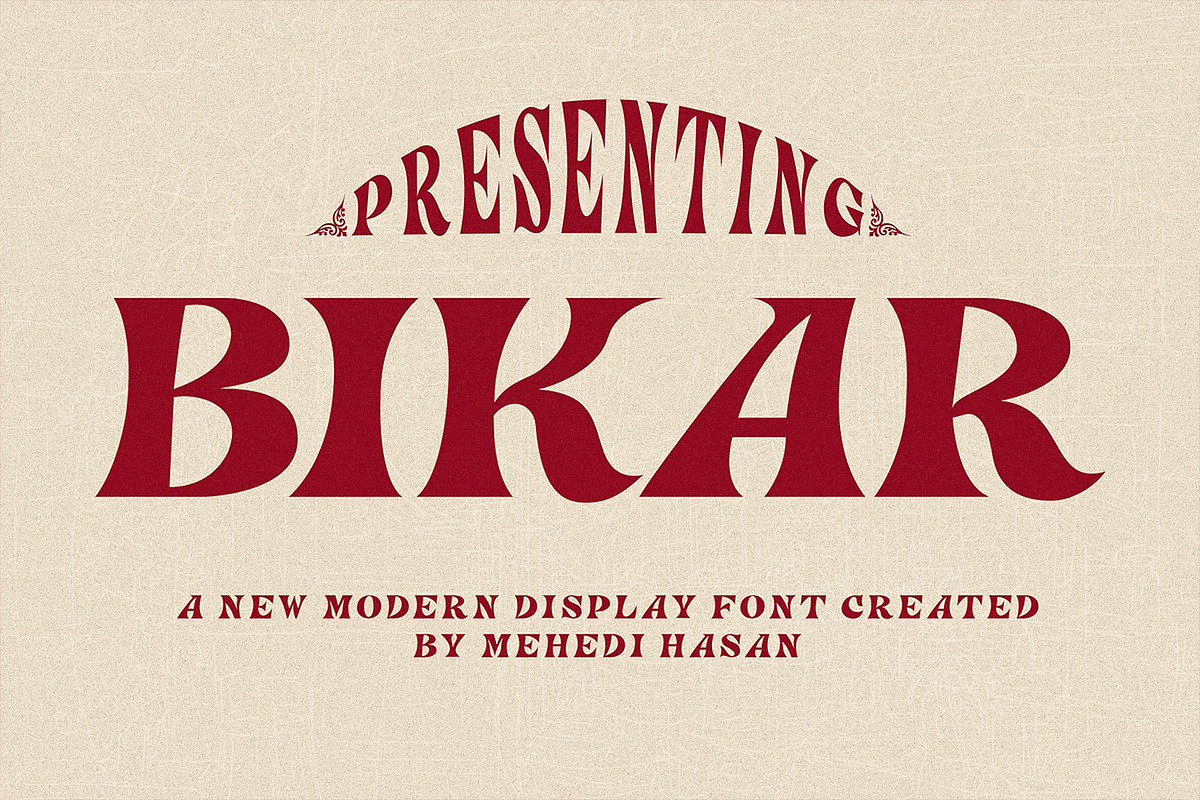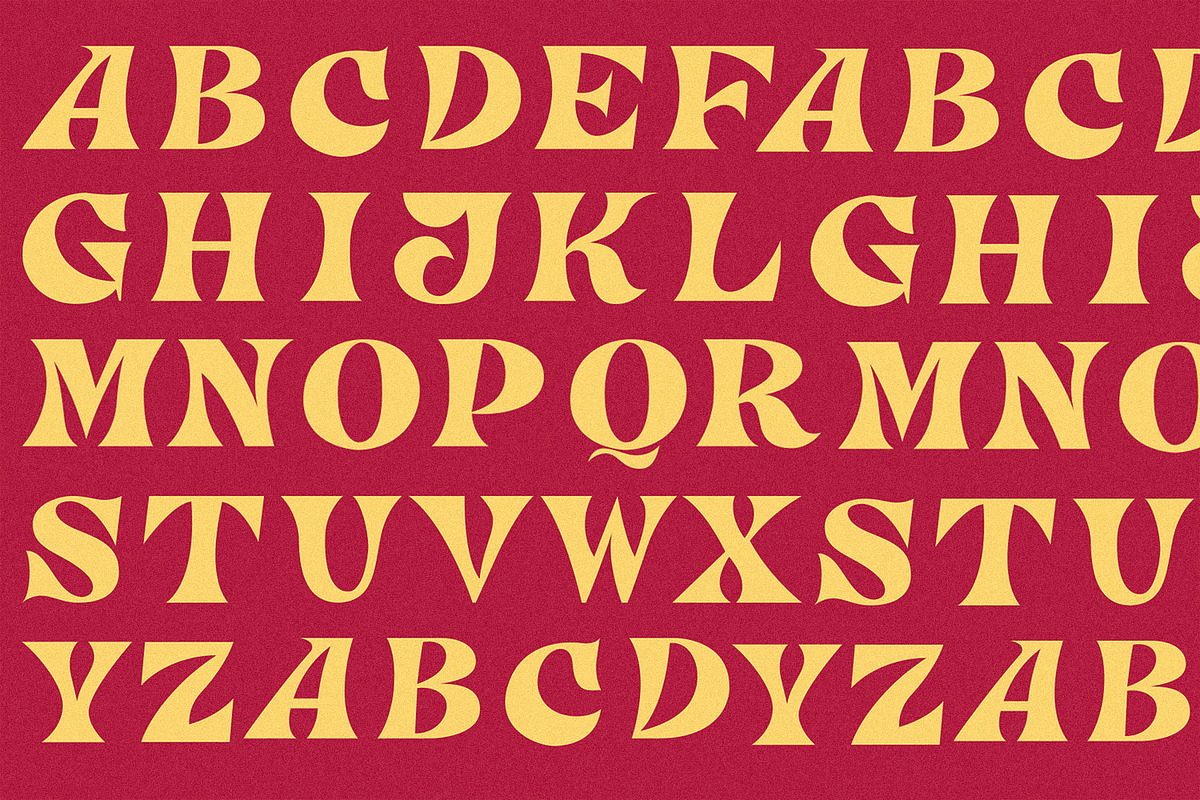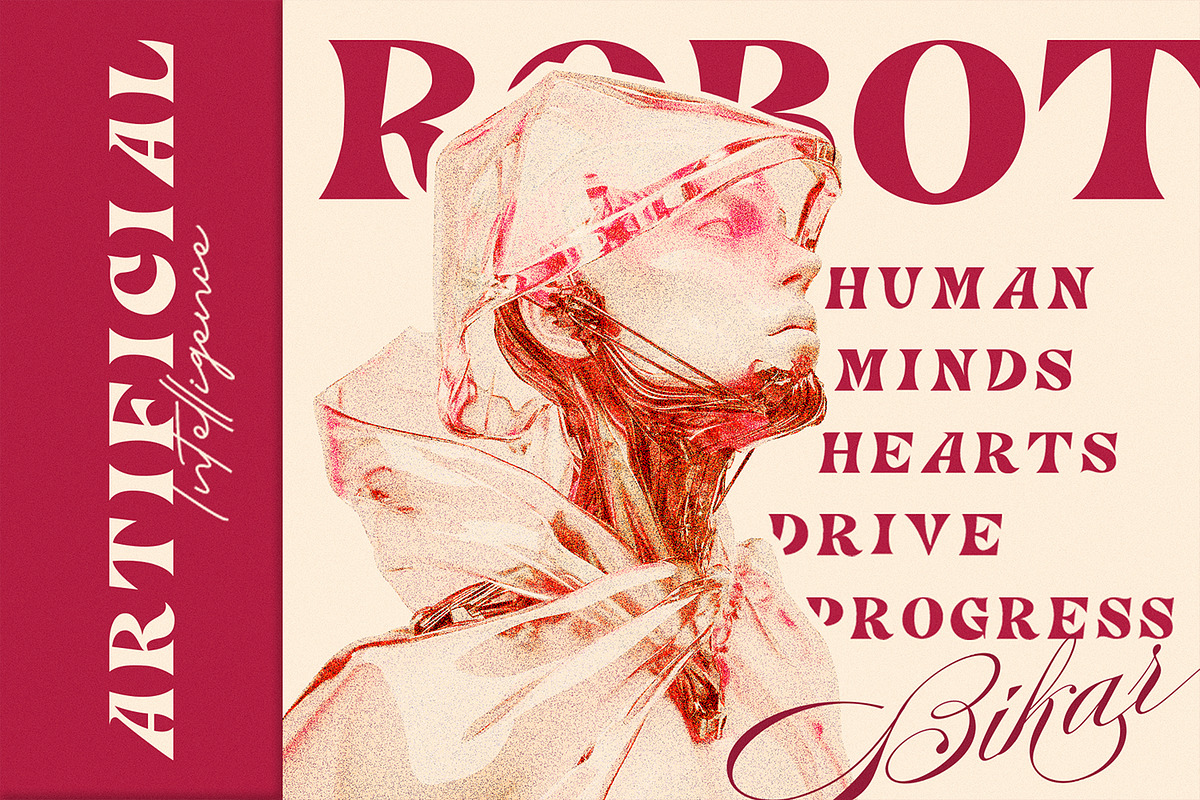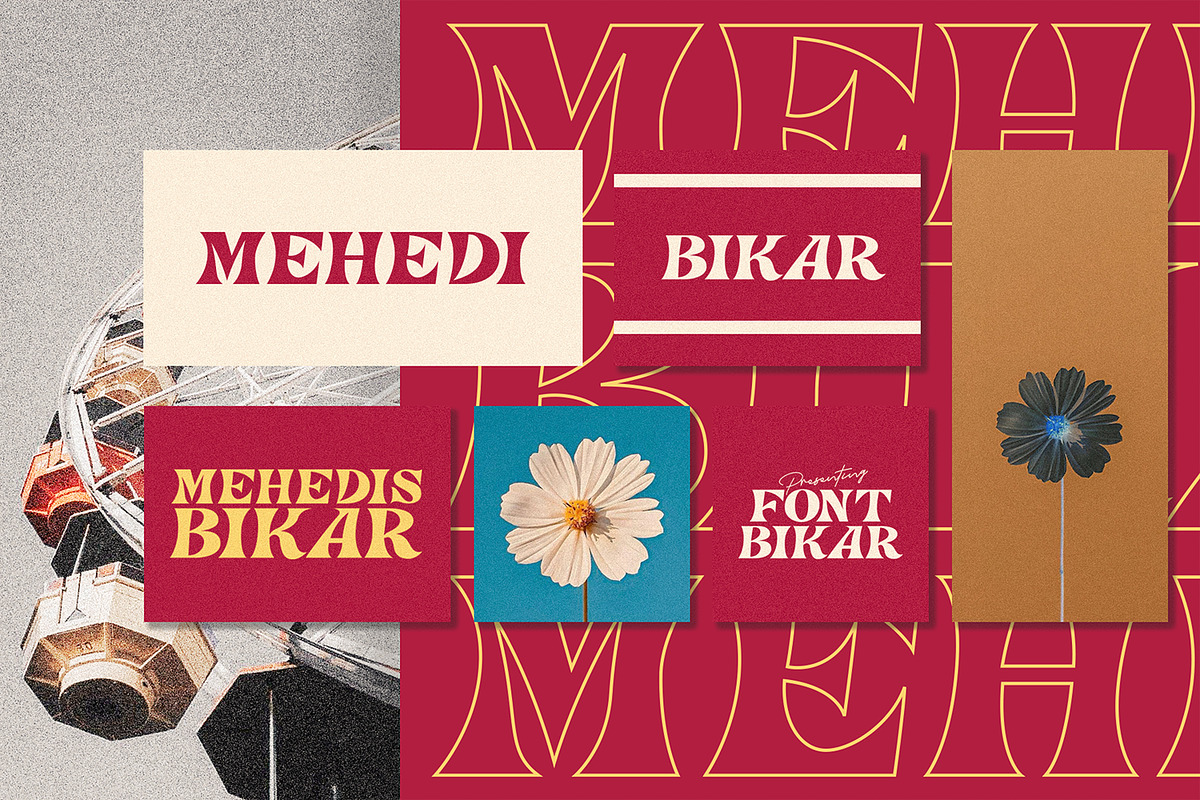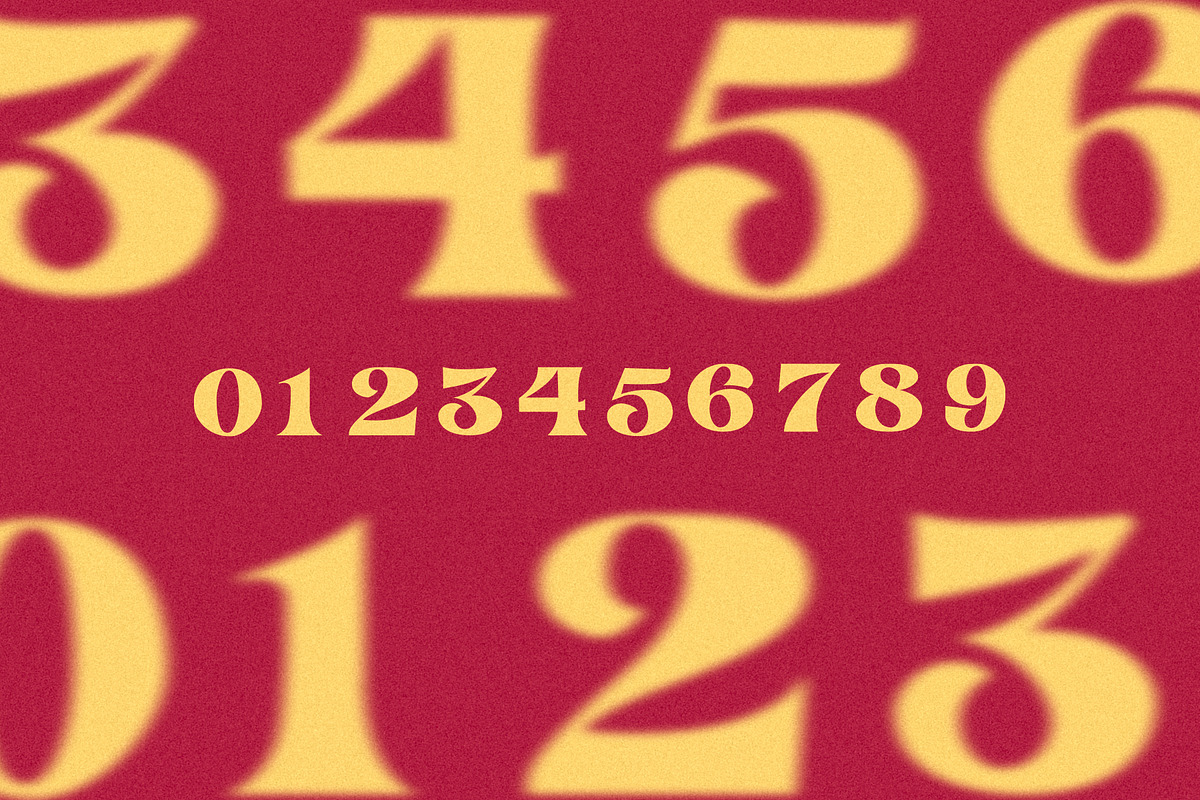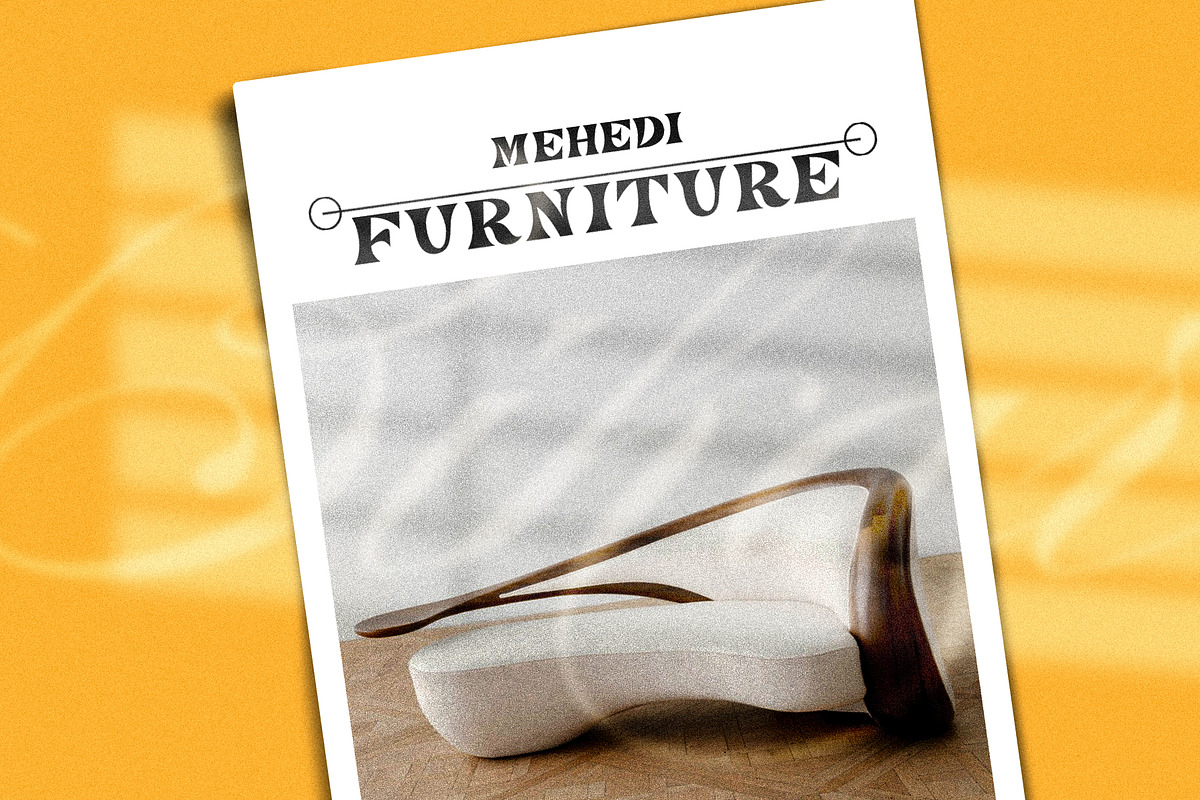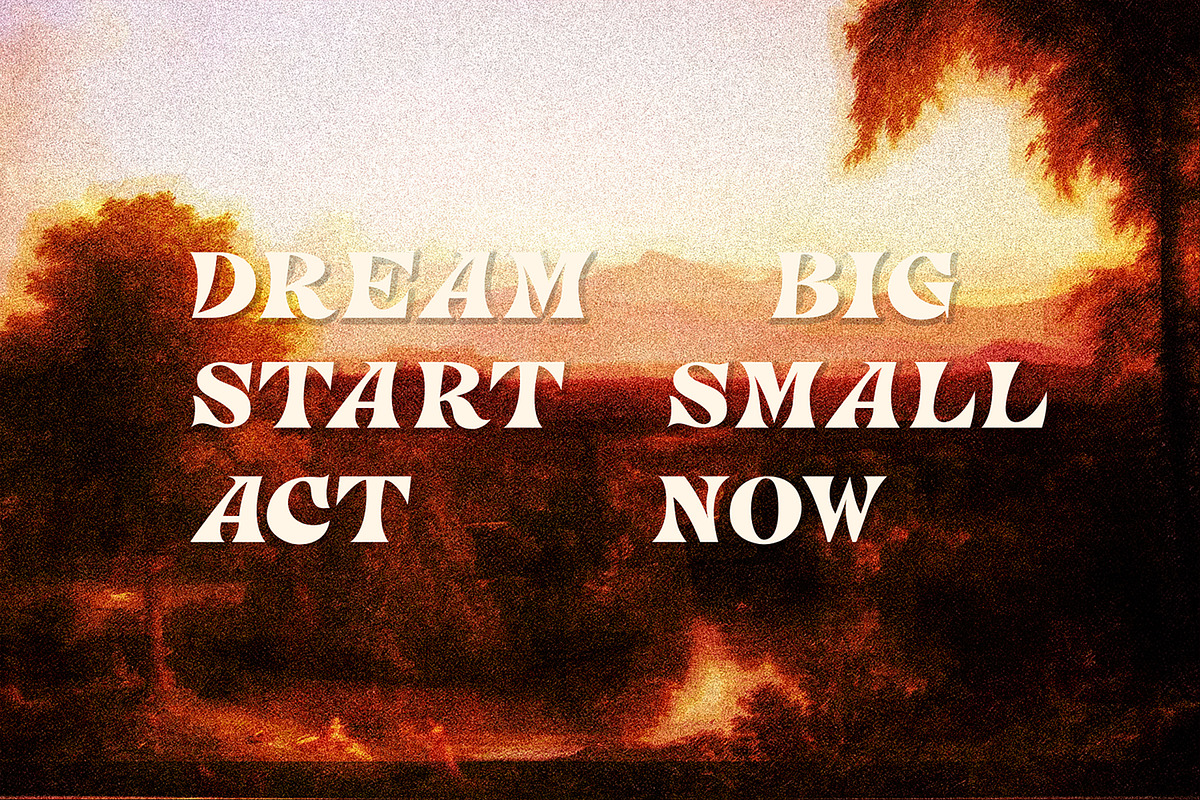
BIKAR – Modern Vintage Display Font
Introducing BIKAR, a modern display font designed to make a statement. With its bold curves, sharp edges, and vintage-inspired details, BIKAR is crafted for projects that demand attention and elegance.
Created by Mehedi Hasan, a passionate college student and type designer, BIKAR represents the fusion of modern creativity and timeless design. Each letter was carefully crafted to balance strong personality with versatile usability, making it perfect for logos, posters, packaging, apparel, and branding projects.
Logo design Posters & flyers Packaging design Apparel & merchandise Social media graphics Vintage & modern branding projects
Make your typography stand out with BIKAR — bold, stylish, and timeless.